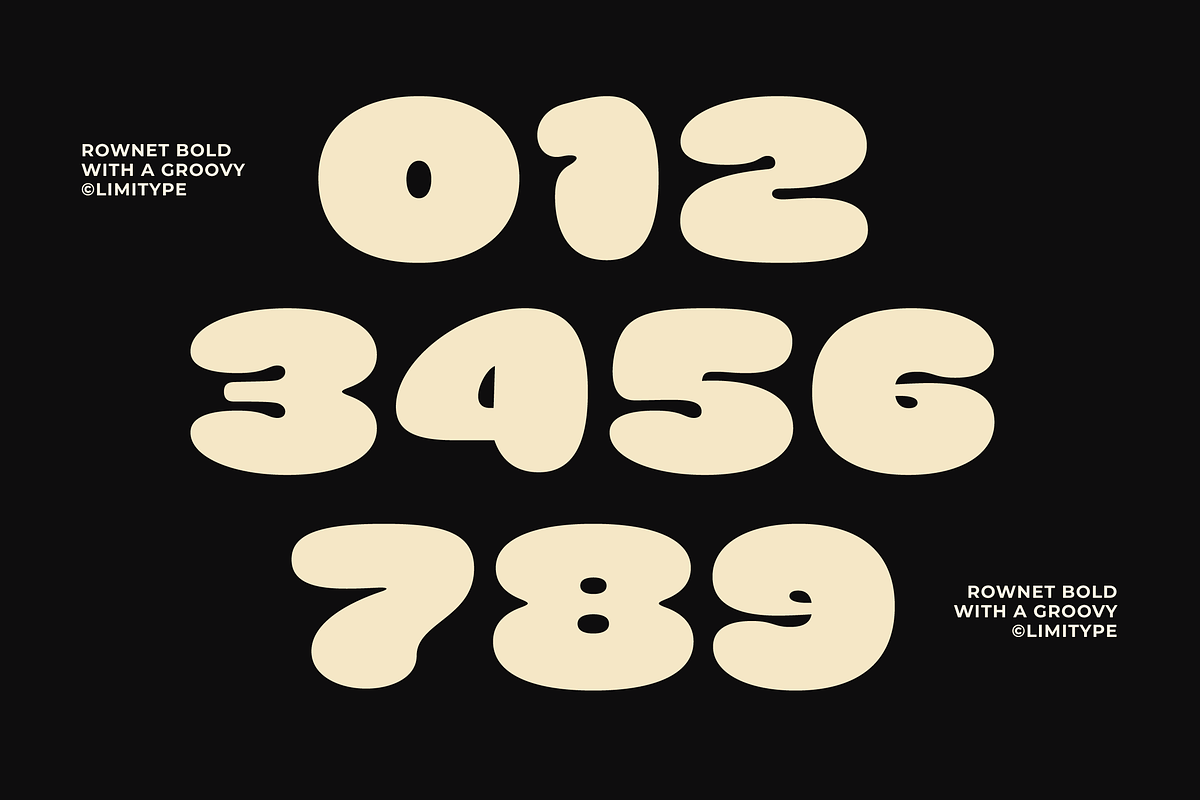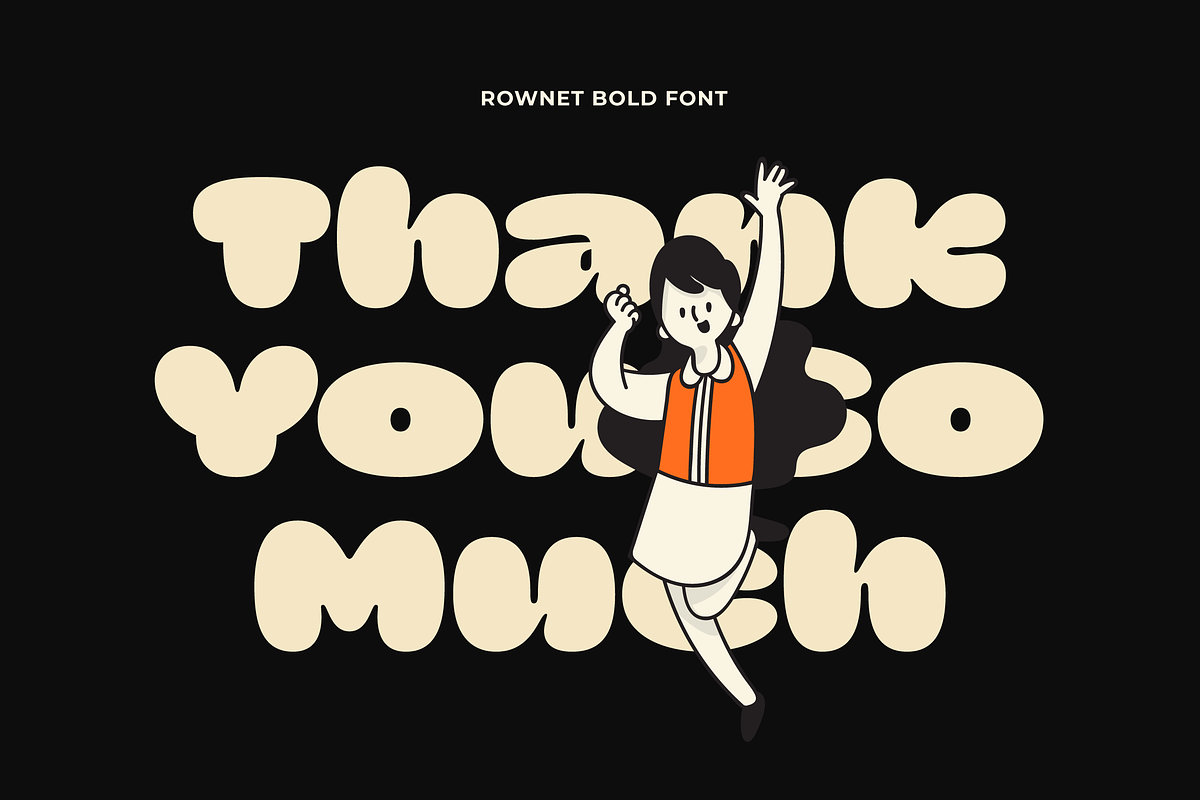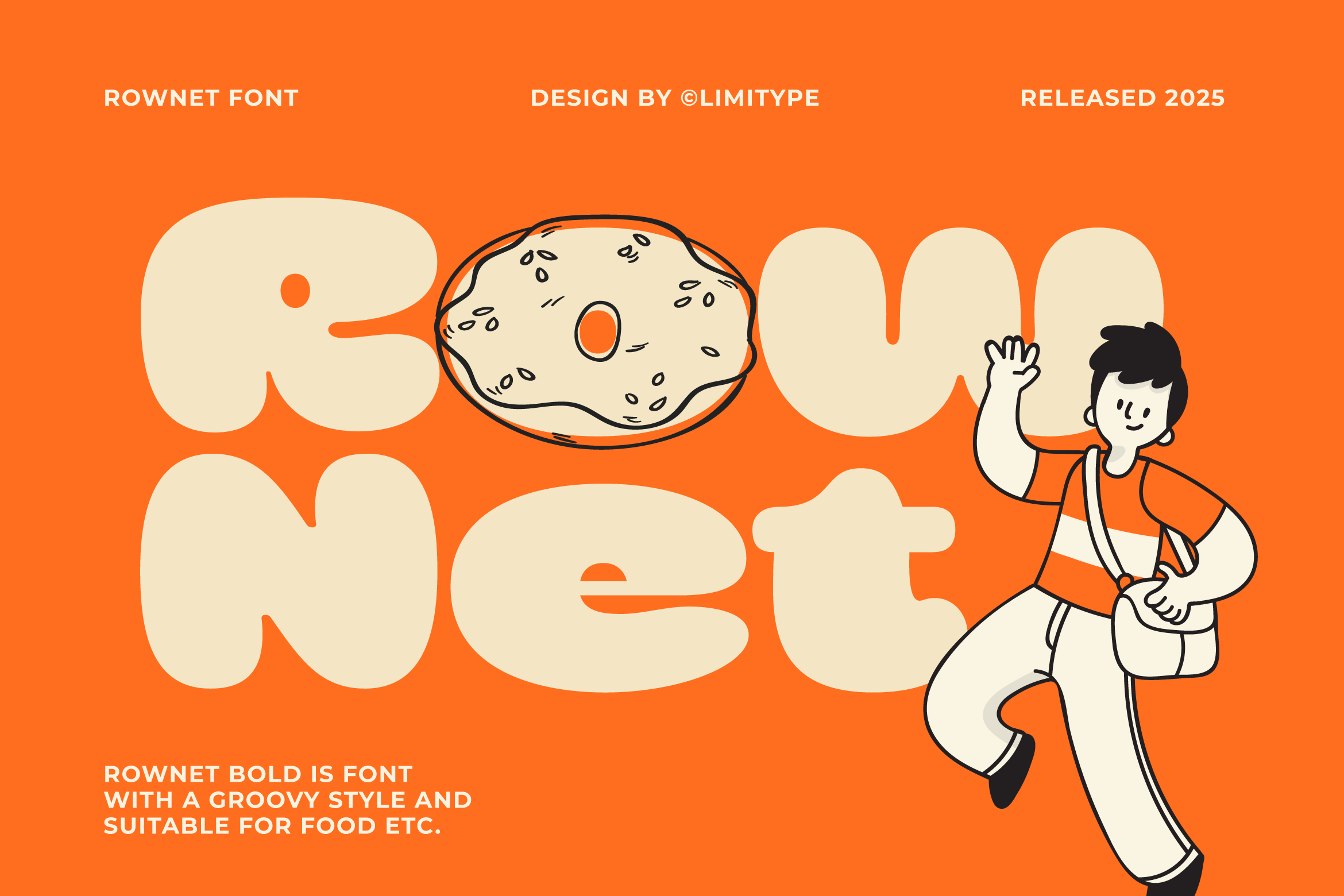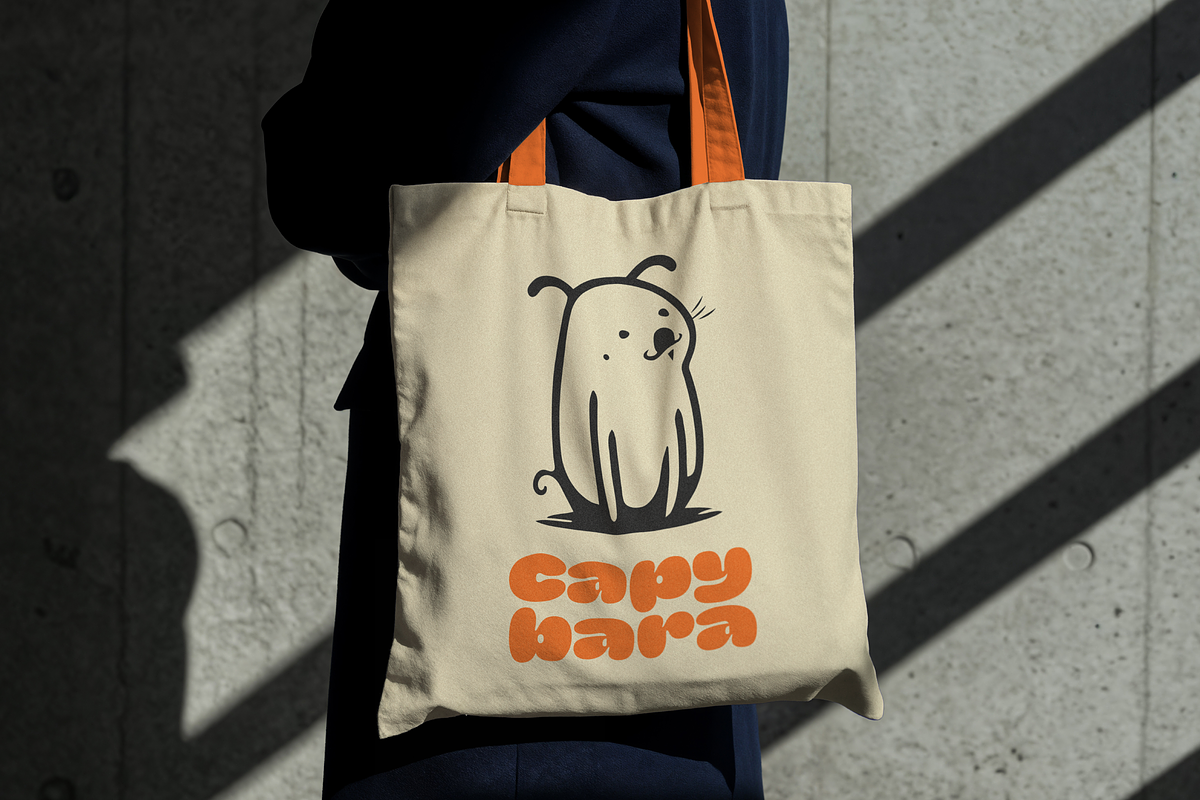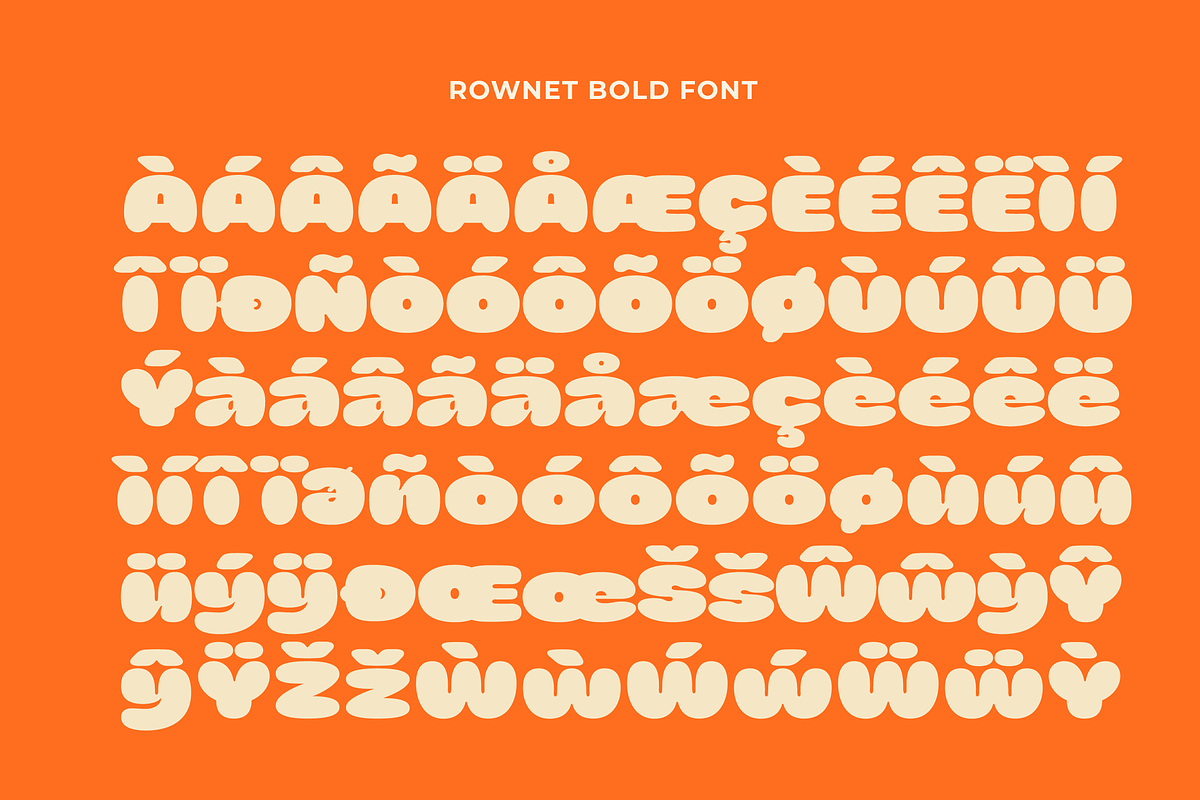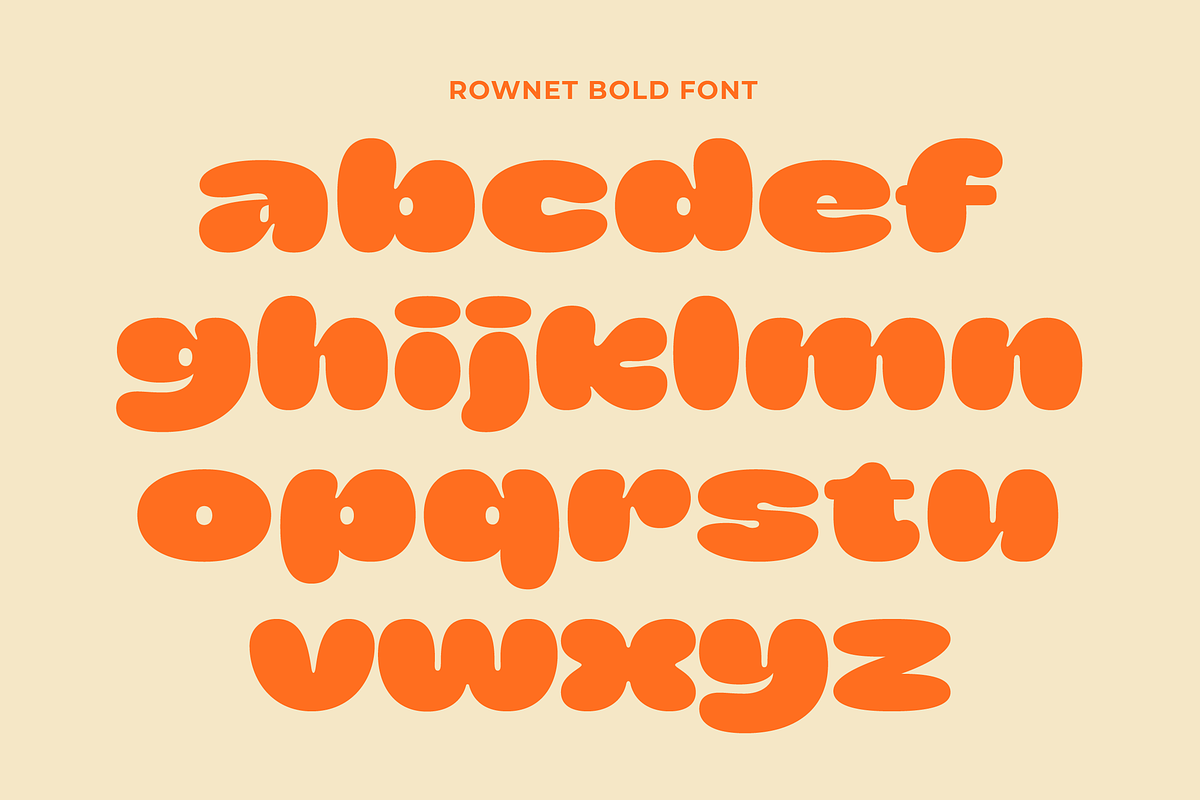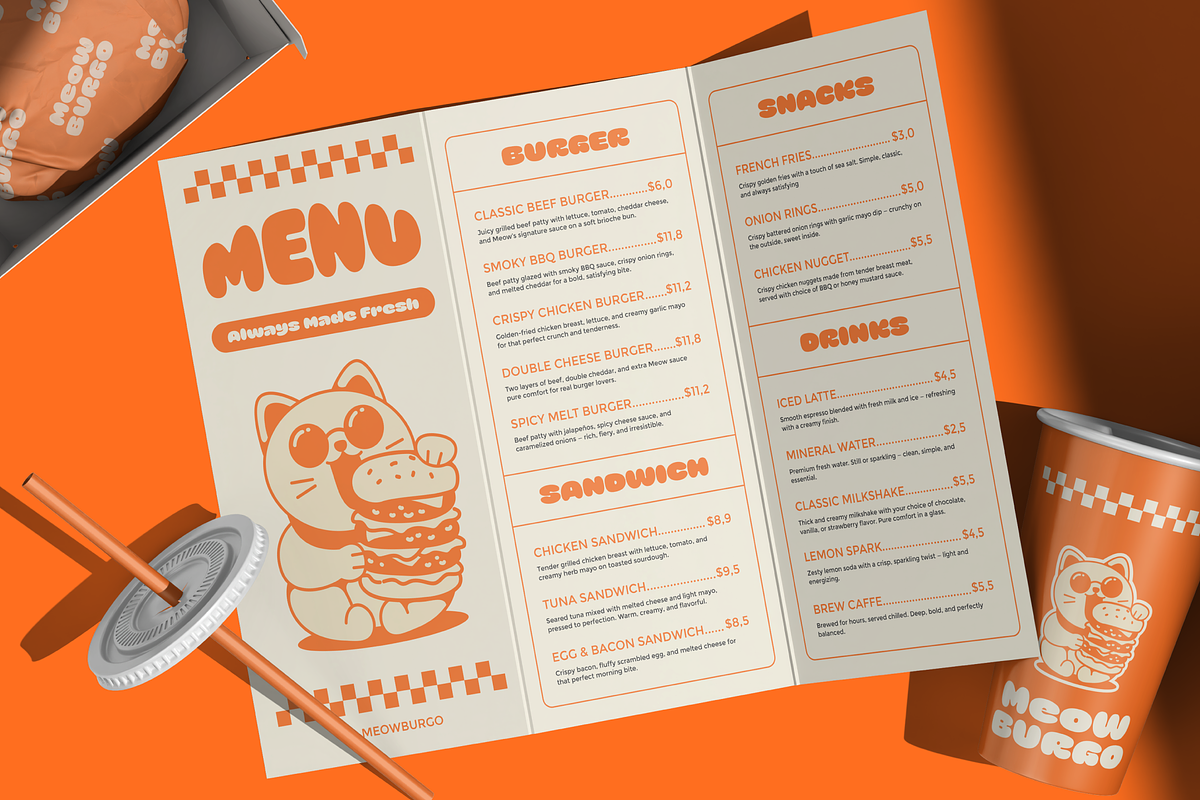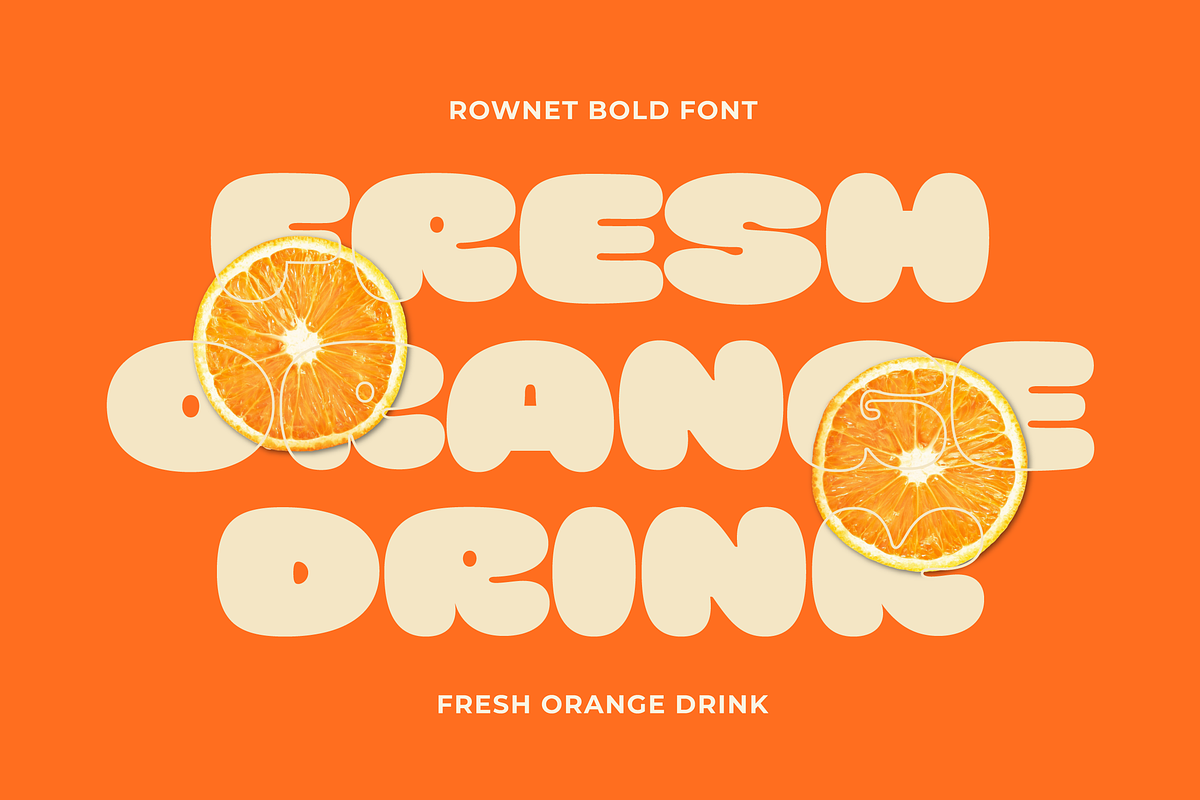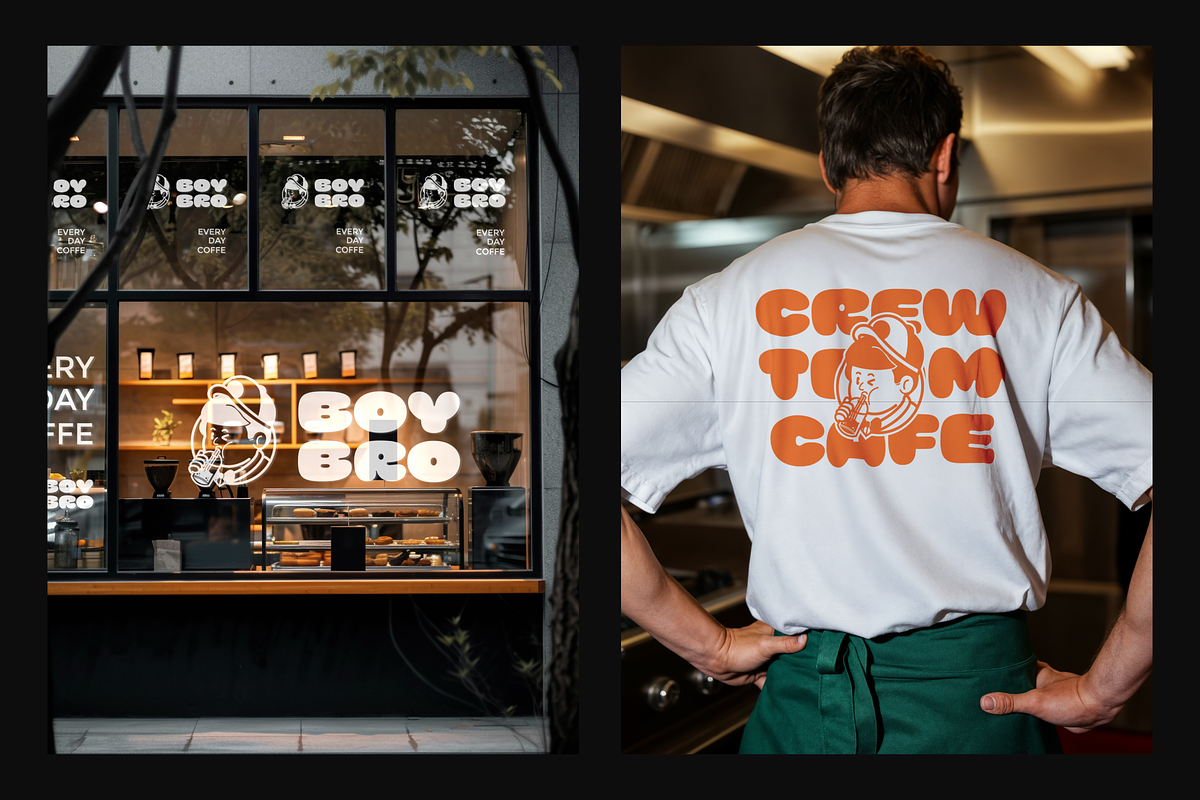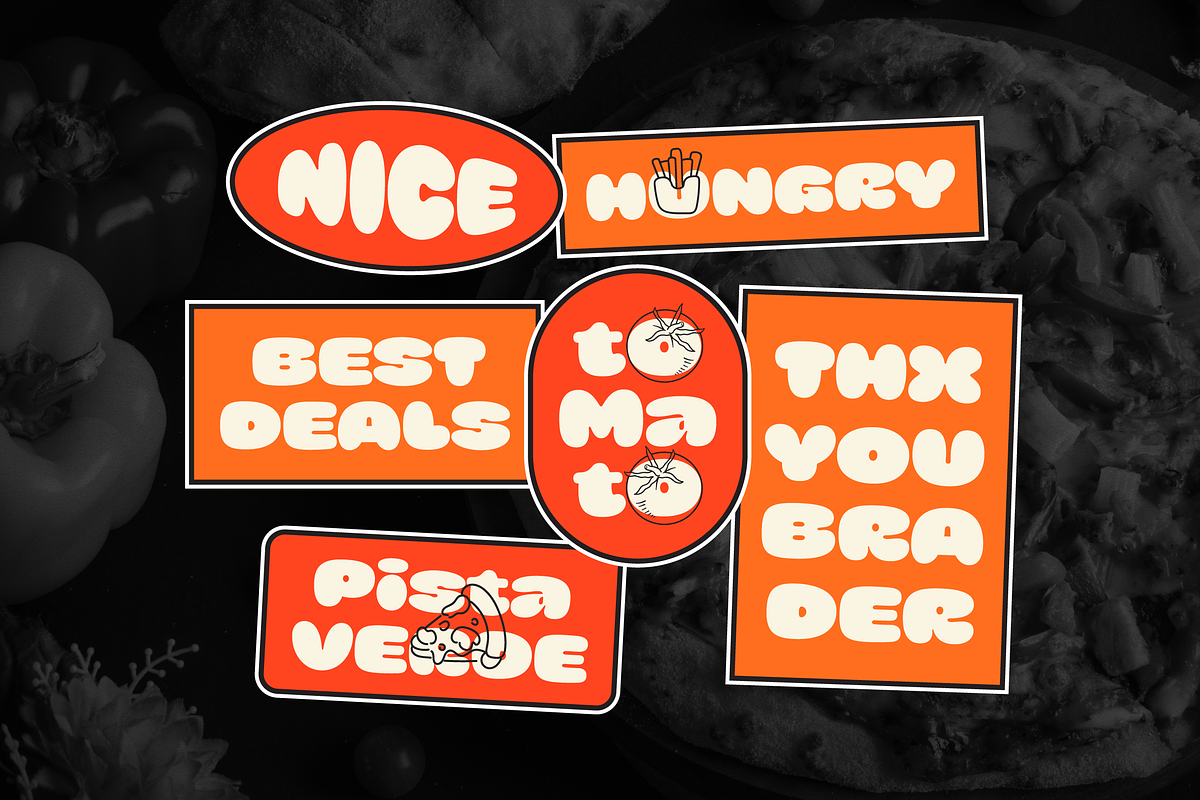
Rownet - Rounded Bold Font
Rownet is a bold typeface with soft, rounded shapes crafted in a bubbly style that brings out a fun and playful feel. It works perfectly for food designs, branding, packaging, and headlines that need a bold, chubby, bubbly, and cheerful look.